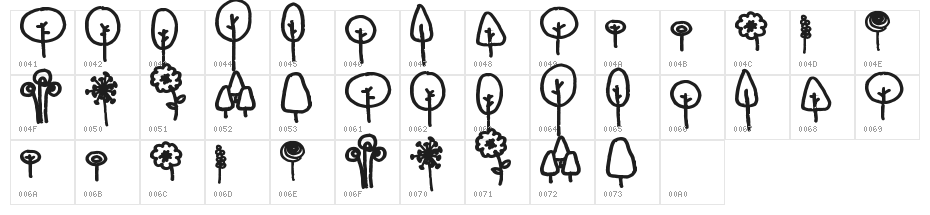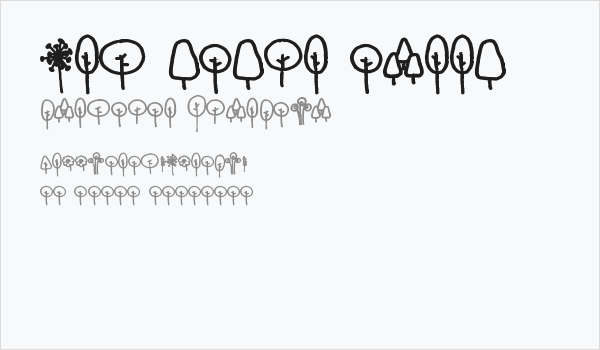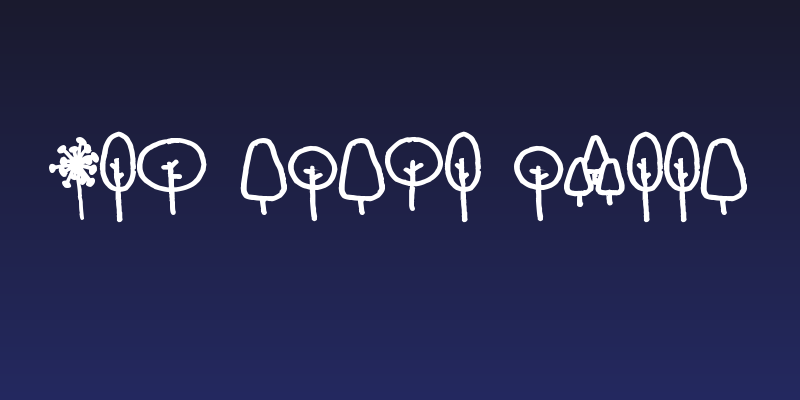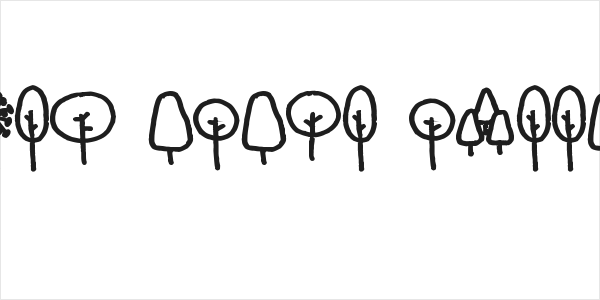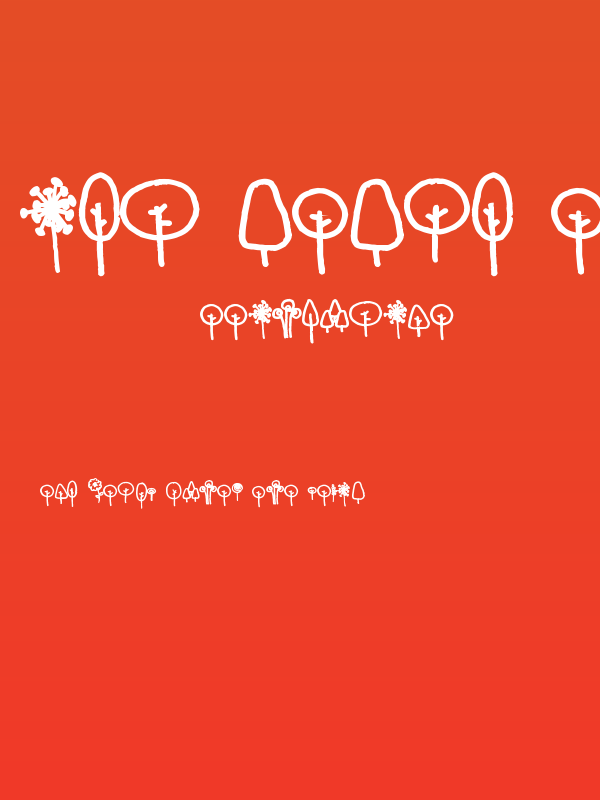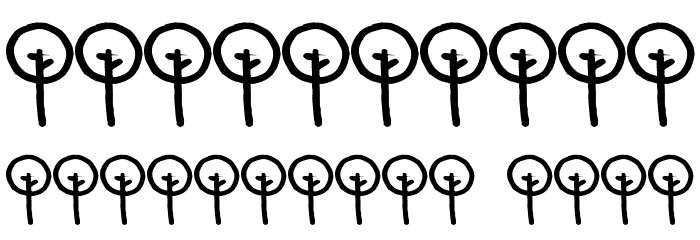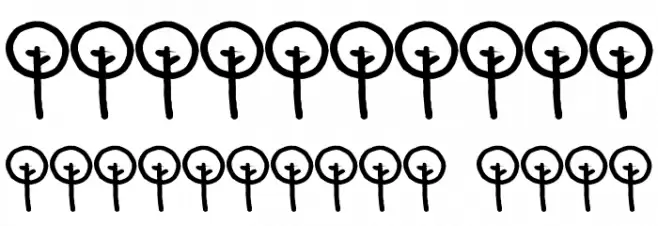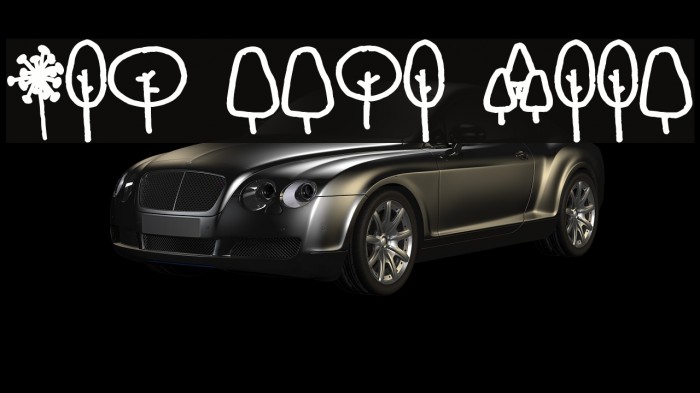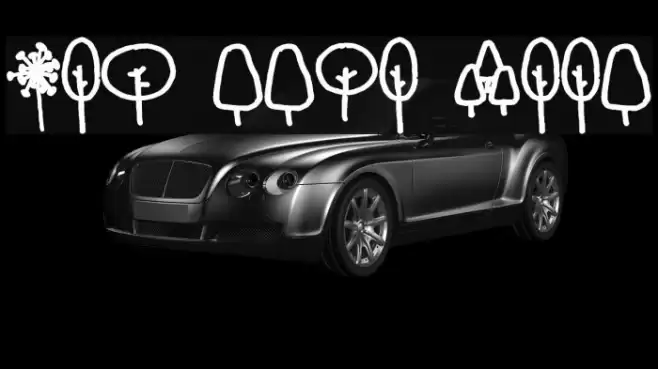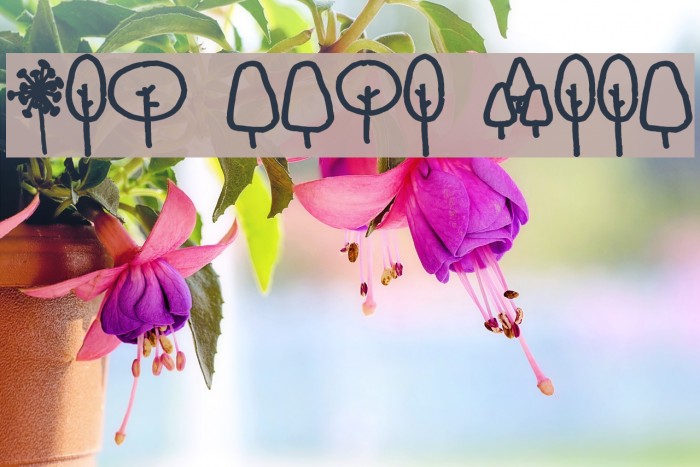
Pea Susie Trees Font
Pea Susie Trees Description
A playful, hand-drawn font featuring whimsical tree illustrations in place of traditional letterforms and symbols, with varied shapes and organic, uneven lines.
| Overall Style | Decorative, Playful, Hand-drawn |
| Use Case | Logos, Headlines, Posters, Themed graphics |
| Proposed Projects | Children's books, eco-friendly branding, greeting cards, educational materials, playful posters. |